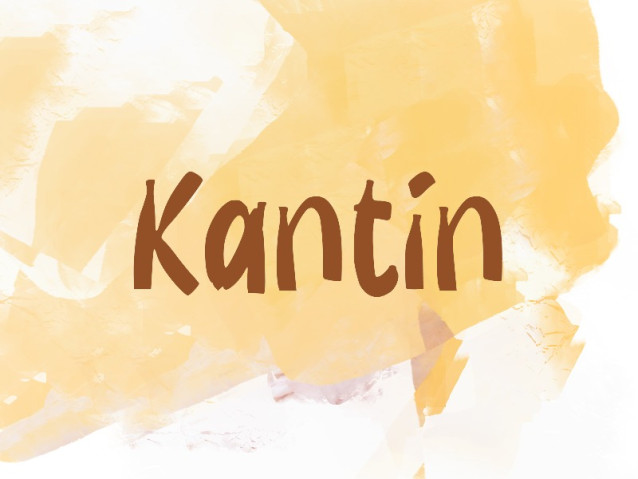
Kantin Font
Kantin Font is a simple and modern display font suitable for quotes, headings, titles, and many more. Use it on any of your creative projects, and your designs will become outstanding!